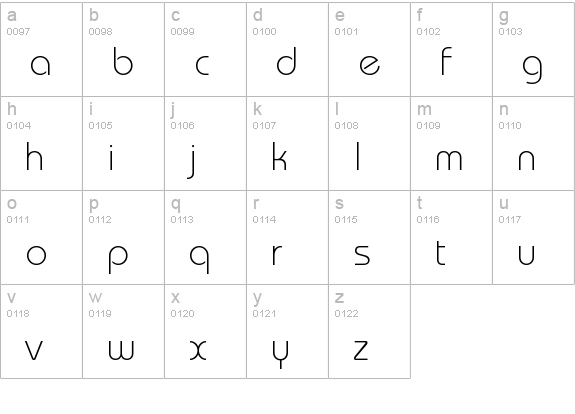
BordeauxLight Regular is the standard, neutral variant in the BordeauxLight typeface family \xE2\x80\x94 well suited to general body text, paragraphs, and standard typographic work.
BordeauxLight Regular is a sophisticated and elegant font that exudes a sense of timeless class and refinement. Its clean lines and delicate curves make it perfect for a wide range of design projects, from invitations to branding to editorial layouts. This font strikes the perfect balance between modernity and tradition, making it versatile and adaptable to various design styles. One of the best things about BordeauxLight Regular is that it is completely free to download. You can easily access this beautiful font at FontsMarket.com, where it is available for download at no cost. Whether you are a professional designer looking to add a touch of elegance to your projects or an amateur enthusiast exploring typography, BordeauxLight Regular is a fantastic choice that won't break the bank. With its timeless appeal and effortless sophistication, BordeauxLight Regular is sure to elevate your designs and leave a lasting impression on your audience. Download this stunning font today and see for yourself the endless possibilities it offers for your creative projects.